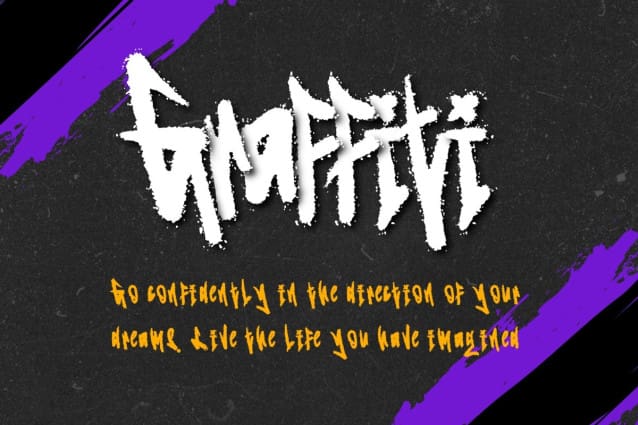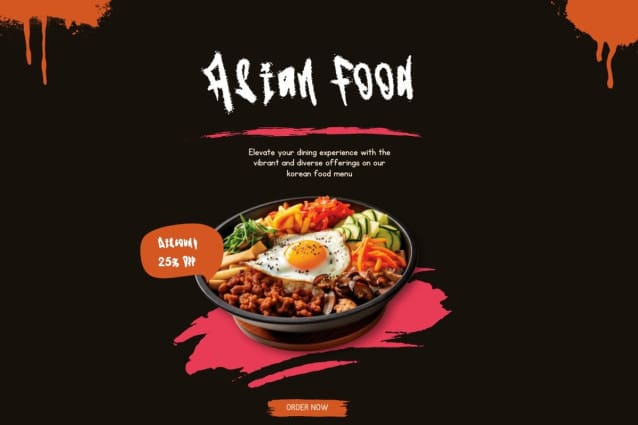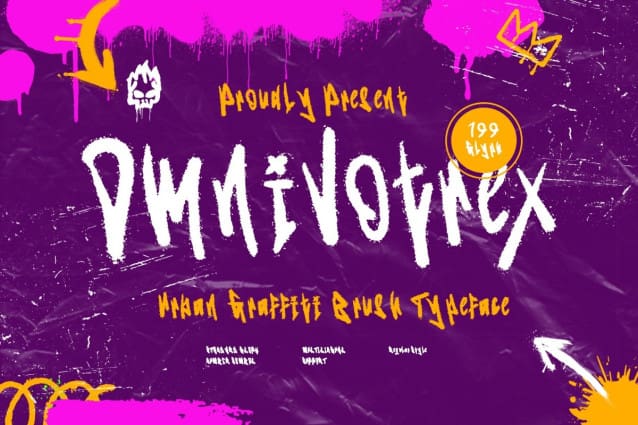
Omnivotrex Graffiti Brush Font
Omnivotrex Graffiti Brush Font is a beautiful Bold Graffiti Brush font. It will look great on all your project designs including t-shirt designs, mug designs, digital designs, crafts, cards and any project!